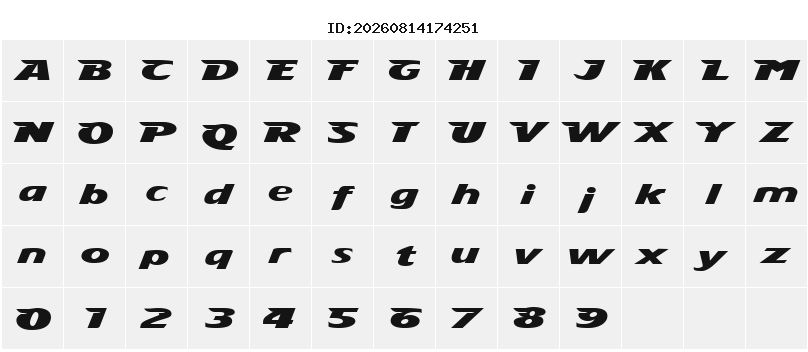
StingRay Preview
• Font Name: StingRay
• Font Style: Extrabold
• Full Font Name: StingRay
About StingRay.ttf
StingRay.ttf is a modern, elegant sans-serif font designed for ultimate readability and visual harmony. Perfect for branding, headlines, web design, and print materials.